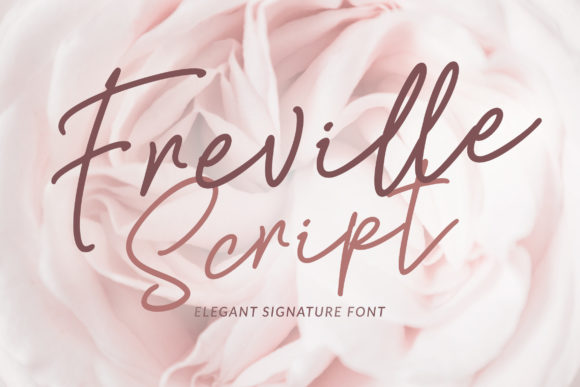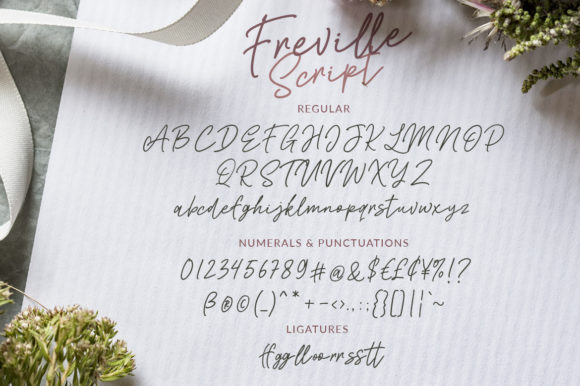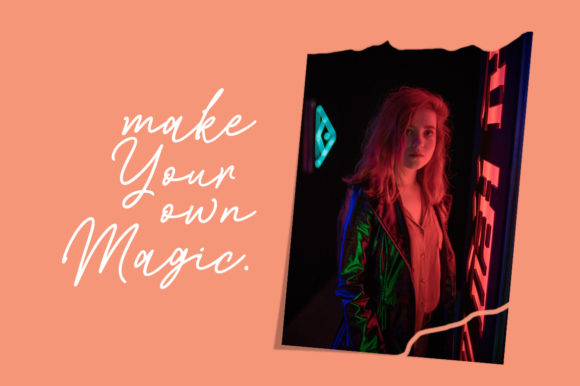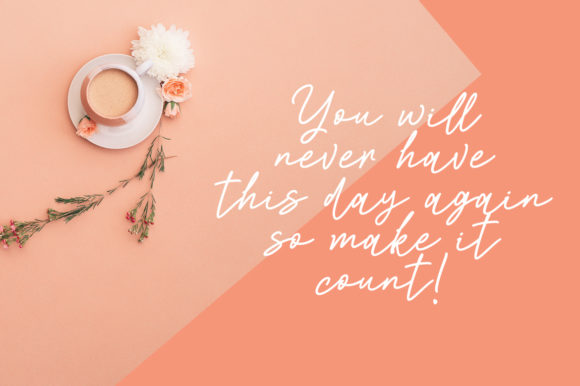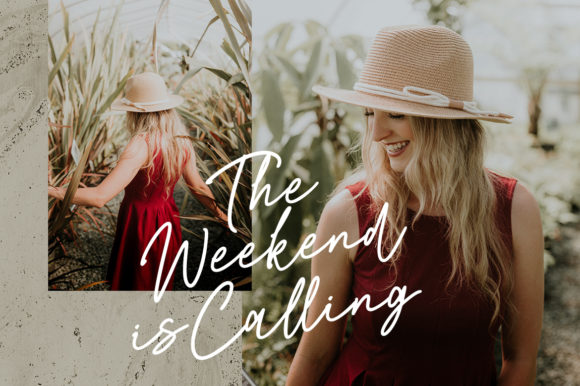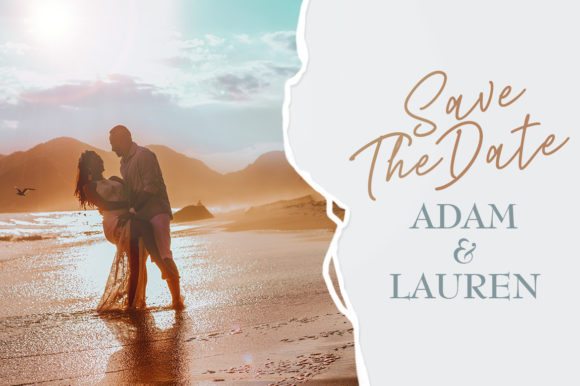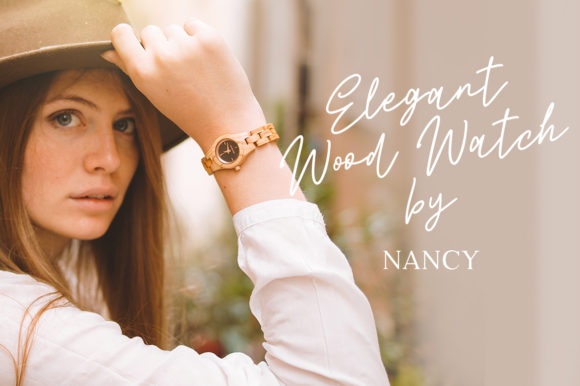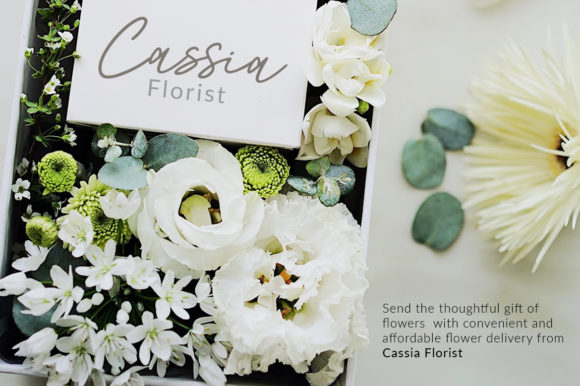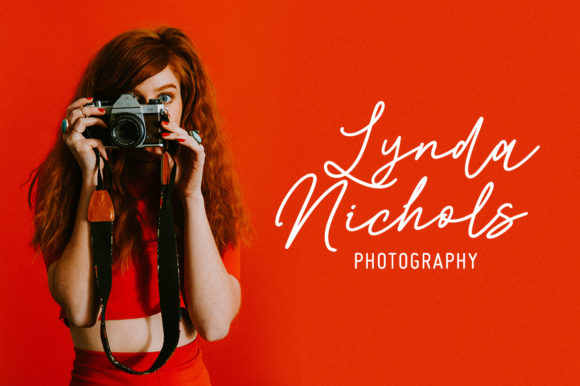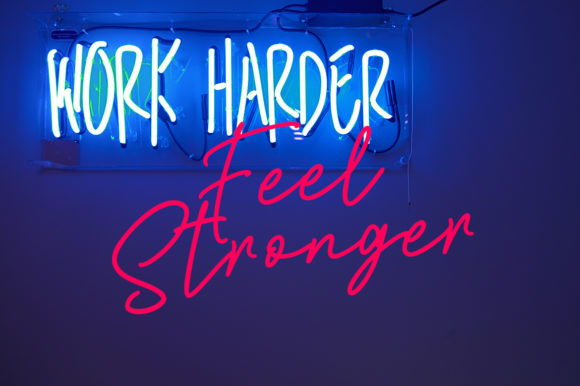
Freville Font
About Freville Font
Freville is a stunning script font with a unique style. Fall in love with its lovely style, and turn any design project into a true standout!